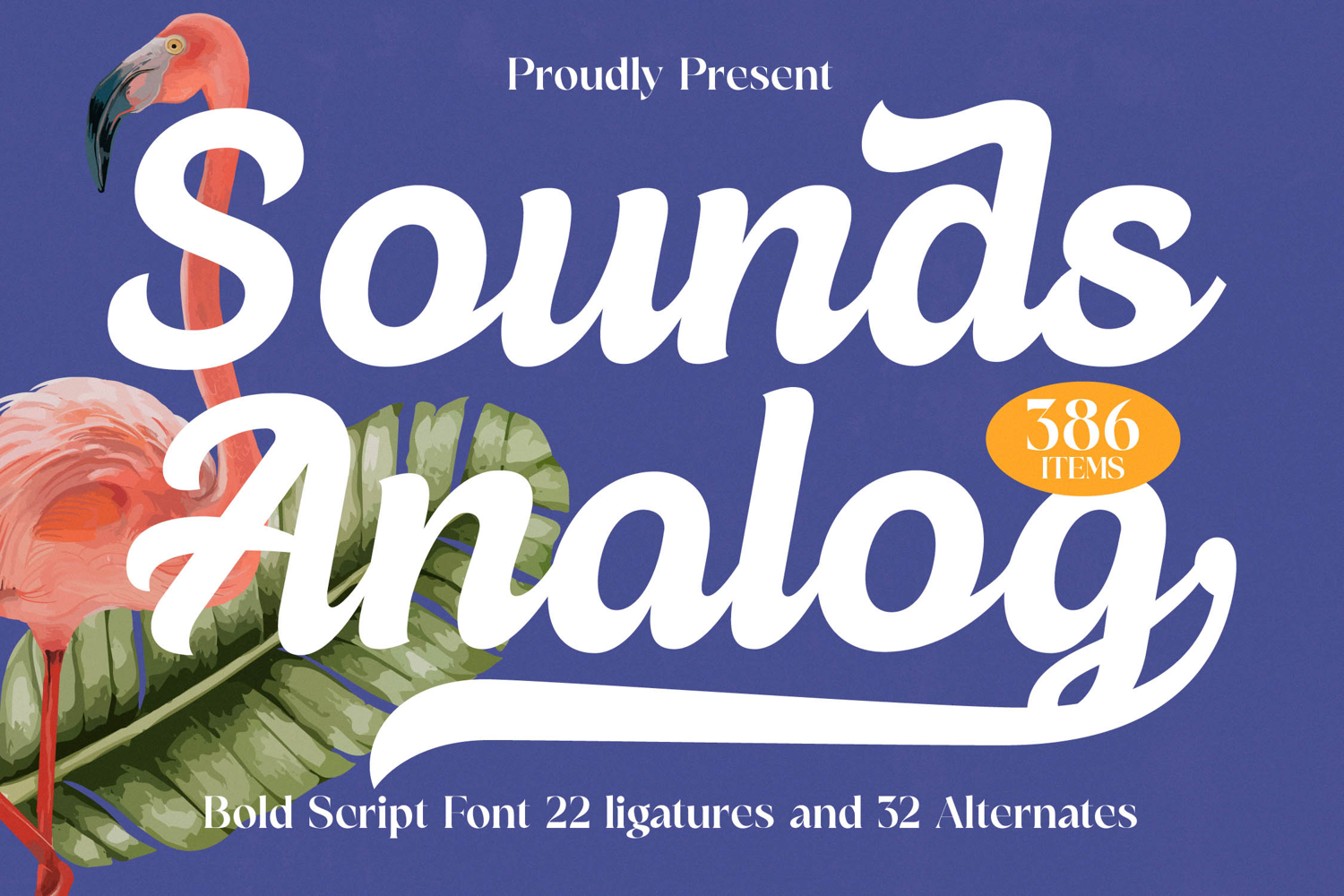
Sounds Analog - Bold Script Font
Unleash a wave of nostalgic elegance combined with undeniable modern flair with Font Sounds Analog - Bold Script Font Script. This exquisite bold script font offers a captivating aesthetic, characterized by its fluid connections and robust presence. It masterfully blends a touch of retro charm with contemporary refinement, ensuring your design stands out with unparalleled grace and impact.
Elevate your typography with an impressive array of design possibilities. Font Sounds Analog - Bold Script Font Script comes equipped with 22 meticulously crafted ligatures and 32 stylish alternates, providing extensive customization. These features empower designers to create truly unique and expressive typographic compositions, lending an authentic, handcrafted feel to every project. Its smooth, flowing lines and generous weight command attention.
Perfectly suited for projects demanding a touch of sophistication and personality, Font Sounds Analog - Bold Script Font Script excels in various applications. It is ideal for luxury branding, high-end packaging, impactful editorial headlines, engaging event invitations, and captivating social media campaigns. With its extensive multilingual support, Font Sounds Analog - Bold Script Font Script adapts seamlessly across global markets, making it incredibly versatile for international projects.
Invest in a typeface that promises to transform your creative vision into compelling realities. Font Sounds Analog - Bold Script Font Script is more than just a font; it’s a design statement that evokes warmth, authenticity, and enduring style. Add this versatile script to your toolkit and give your brand the distinctive voice it deserves, leaving a truly memorable impression on any audience.